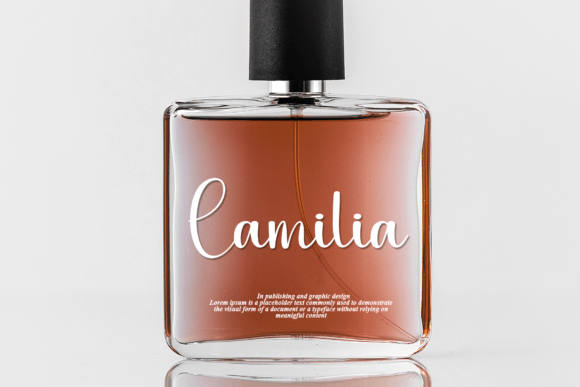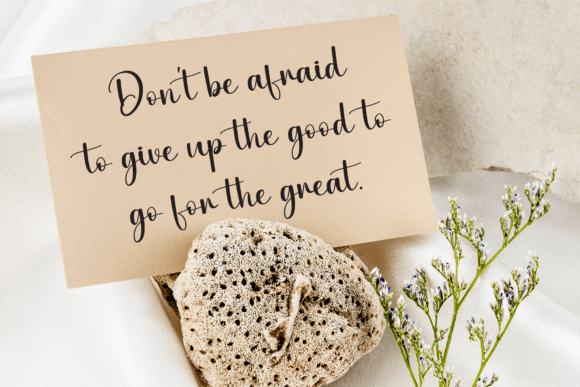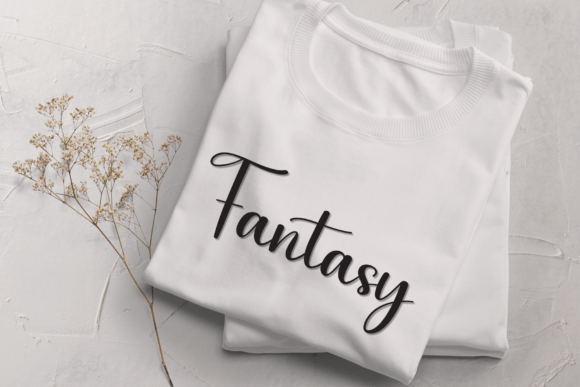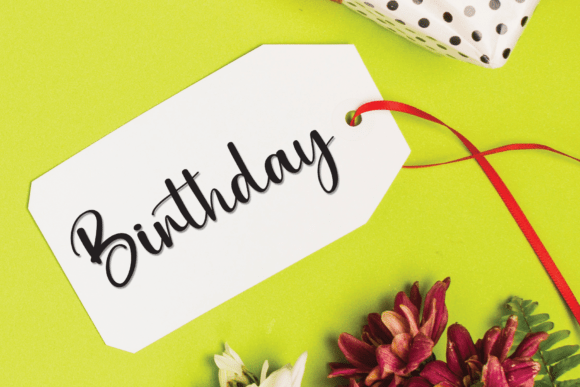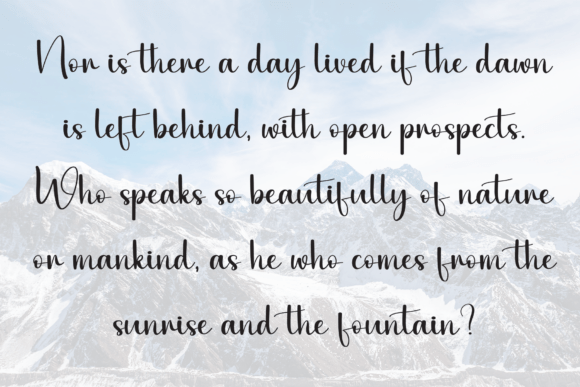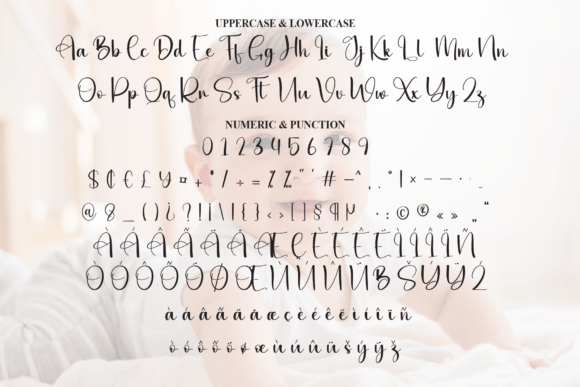
Baby Font: Elevate Your Designs with Elegance and Sophistication
In the world of typography, few fonts manage to strike a balance between elegance and modernity as effectively as Baby Font. This stylish script font is a masterpiece of contemporary design, boasting graceful strokes, fluid curves, and meticulously crafted letterforms that bring to mind the beauty of hand-drawn calligraphy, but with a distinctly modern twist. Whether you’re a designer looking to add a touch of sophistication to your projects or a crafter seeking the perfect font for your creative endeavors, Baby Font is an exceptional choice that promises to elevate your designs to new heights.
The Essence of Baby Font
Baby Font is more than just a collection of letters; it’s an expression of style and refinement. Its design is characterized by smooth, flowing lines that give it a natural, effortless look. Each letterform is carefully crafted to ensure that the font maintains a consistent level of elegance throughout, making it perfect for a wide range of applications, from logos and invitations to packaging and social media graphics.
One of the standout features of Baby Font is its versatility. Despite its inherently elegant nature, it can adapt to a variety of design contexts without losing its impact. For instance, in logo design, Baby Font can help create a brand identity that exudes luxury and sophistication. For invitations, it adds a personal touch that can make any event feel special and anticipated. In packaging, Baby Font can elevate the perceived value of a product, making it stand out on crowded store shelves. Even in social media graphics, it can add a level of refinement that captures the audience’s attention and sets your content apart.
Crafting with Baby Font
For crafters, Baby Font opens up a world of creative possibilities. Whether you’re designing handmade cards, creating custom decals, or planning a DIY project, this font can add a professional touch to your work. Its readability and aesthetic appeal make it suitable for both digital and print projects, allowing you to maintain a consistent brand or personal style across different mediums.
Why Choose Baby Font?
There are several reasons why Baby Font should be your go-to choice for your typography needs:
- Elegance and Modernity: Baby Font strikes the perfect balance between classic elegance and modern charm, making it versatile for various design projects.
- High Readability: Despite its stylish nature, Baby Font maintains high readability, ensuring that your message is conveyed clearly and effectively.
- Customization: The font’s design allows for easy customization, enabling you to adapt it to fit your project’s specific needs.
- Support for Multiple Languages: Baby Font likely includes support for multiple languages, making it a great choice for global brands or projects with an international audience.
Tips for Using Baby Font Effectively
To get the most out of Baby Font, consider the following tips:
- Pair it Wisely: Combine Baby Font with complementary fonts to create visual interest and hierarchy in your designs.
- Adjust Letter Spacing: Fine-tune the letter spacing to ensure that your text looks cohesive and aesthetically pleasing.
- Experiment with Colors: Don’t be afraid to experiment with different colors to find the perfect match that enhances the elegance of Baby Font.
- Consider Size and Weight: Play with different sizes and weights of Baby Font to add depth and emphasis to your designs.
Baby Font is a stylish script font that brings a touch of elegance and contemporary charm to any design project. Its graceful strokes, fluid curves, and carefully crafted letterforms make it an ideal choice for designers and crafters looking to add sophistication and refinement to their work. With its versatility, readability, and aesthetic appeal, Baby Font is poised to become a staple in your typography arsenal, helping you create stunning designs that leave a lasting impression.